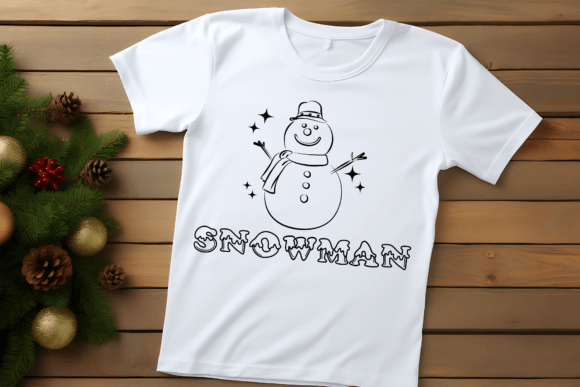
Snow Christmas Font
Snow Christmas is a decorative font where the letters are topped with a fun layer of snow, giving a festive and wintry look perfect for holiday designs.